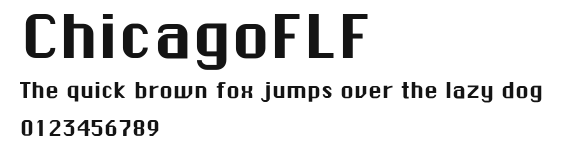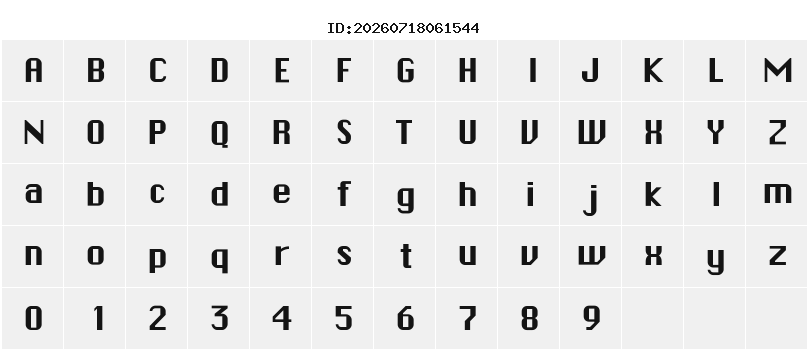
ChicagoFLF Preview
About ChicagoFLF.ttf
ChicagoFLF.ttf is a modern, elegant sans-serif font designed for ultimate readability and visual harmony. Perfect for branding, headlines, web design, and print materials.